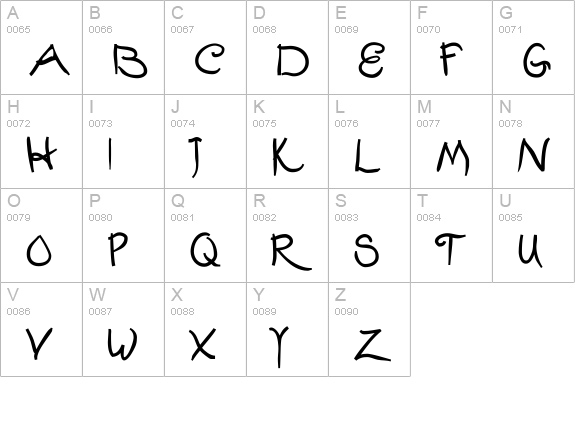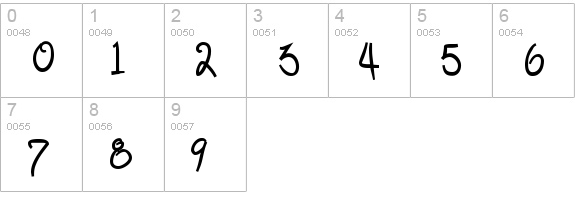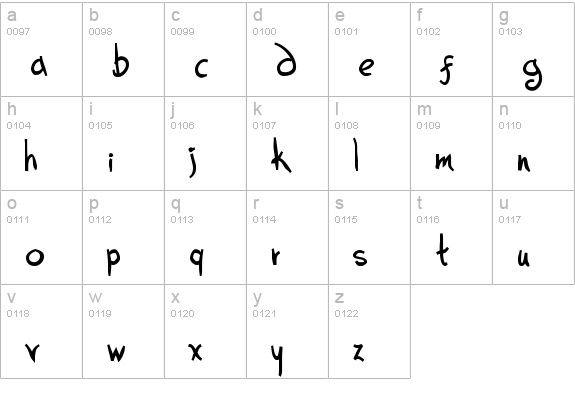
ChristmasGiftScriptBoldA Font Details
ChristmasGiftScriptBoldA font is a stunning and festive typeface that captures the joy and spirit of the holiday season. With its elegant script style and bold look, this font is perfect for adding a touch of holiday cheer to your designs. Whether you're creating Christmas cards, party invitations, or seasonal decorations, ChristmasGiftScriptBoldA is sure to make your text stand out. The best part? ChristmasGiftScriptBoldA font is completely free to download at FontsMarket.com. That's right, you can add this beautiful font to your collection without spending a dime. So why wait? Spread some Christmas magic with ChristmasGiftScriptBoldA font today!